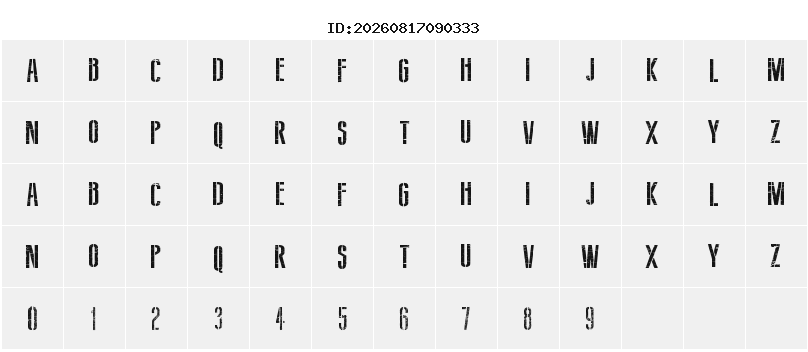
• Font Name: Soviet Style
• Designer: Galdino Otten
Soviet Style.ttf is a modern, elegant sans-serif font designed for ultimate readability and visual harmony. Perfect for branding, headlines, web design, and print materials.